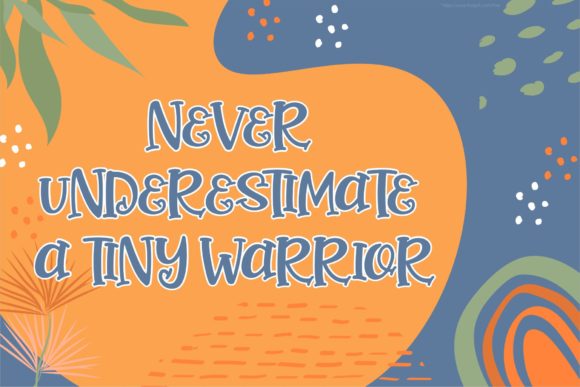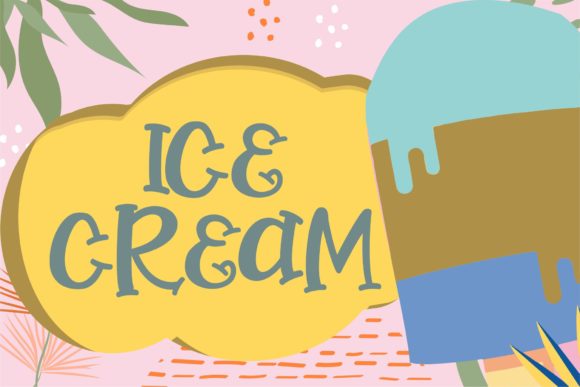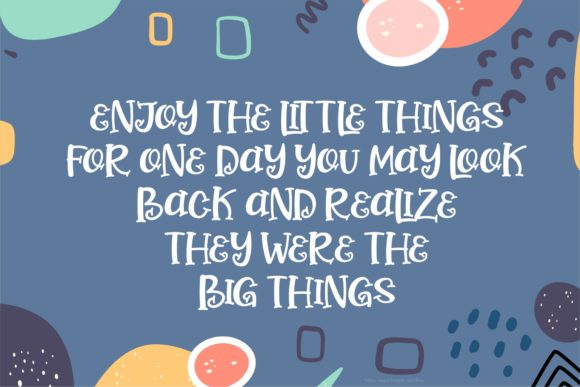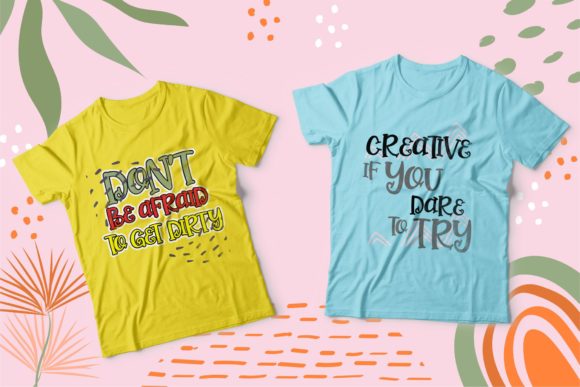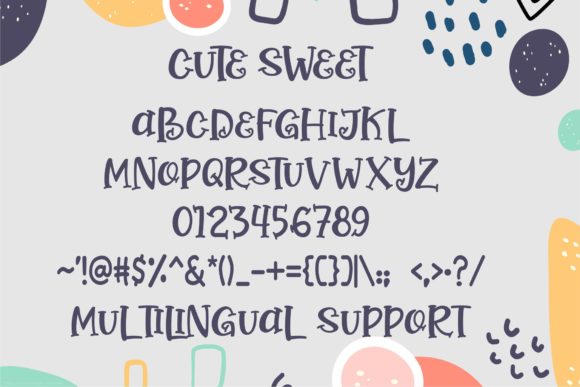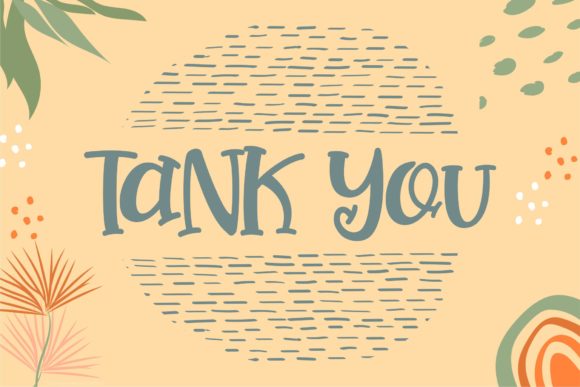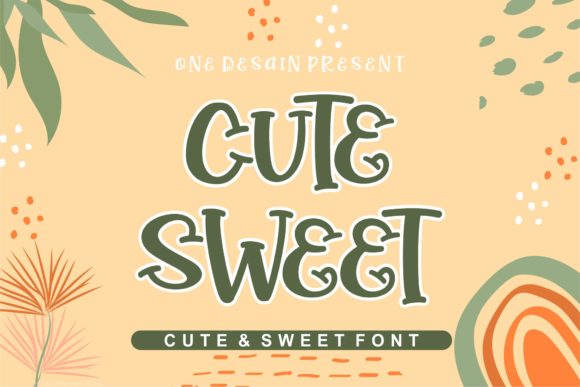
Cute Sweet Font: Adding a Joyful Touch to Your Designs
Are you a designer or crafter looking for a font that can add a playful and whimsical touch to your creative projects? Look no further than Cute Sweet Font! This sweet and quirky display font is sure to bring a smile to your face and make your designs come alive.
What is Cute Sweet Font?
Cute Sweet Font is a unique and eye-catching display font that is perfect for adding a touch of personality to your designs. Its sweet and quirky style makes it ideal for a variety of creative projects, from handmade crafts to digital designs. With its playful and fun vibe, Cute Sweet Font is sure to capture the attention of your audience and leave a lasting impression.
Features of Cute Sweet Font
Cute Sweet Font has several features that make it a standout font for designers and crafters. Some of its key features include:
- Sweet and Quirky Style: Cute Sweet Font has a unique and playful style that is sure to add a touch of personality to your designs.
- Display Font: This font is specifically designed as a display font, making it perfect for headlines, titles, and other prominent text elements.
- Easy to Read: Despite its playful style, Cute Sweet Font is easy to read and understand, making it perfect for use in a variety of creative projects.
- Versatile: Cute Sweet Font can be used in a variety of creative projects, from handmade crafts to digital designs.
How to Use Cute Sweet Font
Cute Sweet Font is easy to use and can be incorporated into a variety of creative projects. Here are a few ideas for using Cute Sweet Font:
- Handmade Crafts: Add a personal touch to your handmade crafts, such as scrapbooking, card making, and journaling, with Cute Sweet Font.
- Digital Designs: Use Cute Sweet Font in your digital designs, such as social media graphics, blog posts, and website headers.
- Signs and Banners: Add a playful touch to your signs and banners with Cute Sweet Font.
- Party Decorations: Use Cute Sweet Font to create fun and playful party decorations, such as invitations, garlands, and banners.
Benefits of Using Cute Sweet Font
Using Cute Sweet Font in your creative projects has several benefits, including:
- Adds Personality: Cute Sweet Font adds a playful and whimsical touch to your designs, making them more engaging and memorable.
- Easy to Use: Cute Sweet Font is easy to use and can be incorporated into a variety of creative projects.
- Versatile: Cute Sweet Font can be used in a variety of creative projects, from handmade crafts to digital designs.
- Unique: Cute Sweet Font is a unique and eye-catching font that will help your designs stand out from the crowd.
Tips for Using Cute Sweet Font
Here are a few tips for using Cute Sweet Font in your creative projects:
- Use it Sparingly: Cute Sweet Font is a bold and playful font, so use it sparingly to avoid overwhelming your design.
- Pair it with Other Fonts: Pair Cute Sweet Font with other fonts to create a unique and visually appealing design.
- Experiment with Colors: Experiment with different colors to find the perfect combination that complements Cute Sweet Font.
| Font Name | Cute Sweet Font |
| Author | One Design Type |
Cute Sweet Font is a sweet and quirky display font that is perfect for adding a playful and whimsical touch to your creative projects. With its unique style, ease of use, and versatility, Cute Sweet Font is a great addition to any designer’s or crafter’s toolkit. So why not give it a try and see how it can bring a joyful touch to your designs!